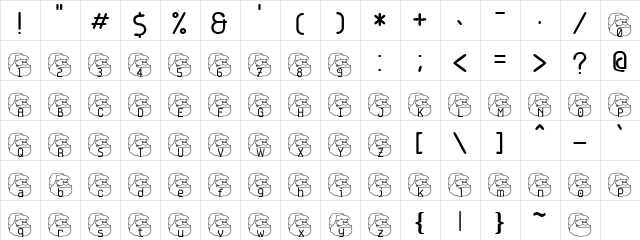
KrissKringleIDPic Regular
Design Context for KrissKringleIDPic Typeface
KrissKringleIDPic is a composed and adaptable typeface that performs quietly and consistently across a wide range of design contexts.